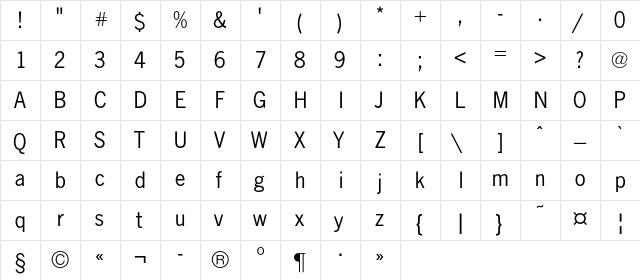
NewsPaperC Regular
Design Context for NewsPaperC Typeface
NewsPaperC offers clean, dependable letterforms without strong stylistic allegiance, making it a practical choice for designers who need flexibility.
Pro Tip: Pair NewsPaperC with a font of contrasting weight or personality to build a more expressive typographic hierarchy.